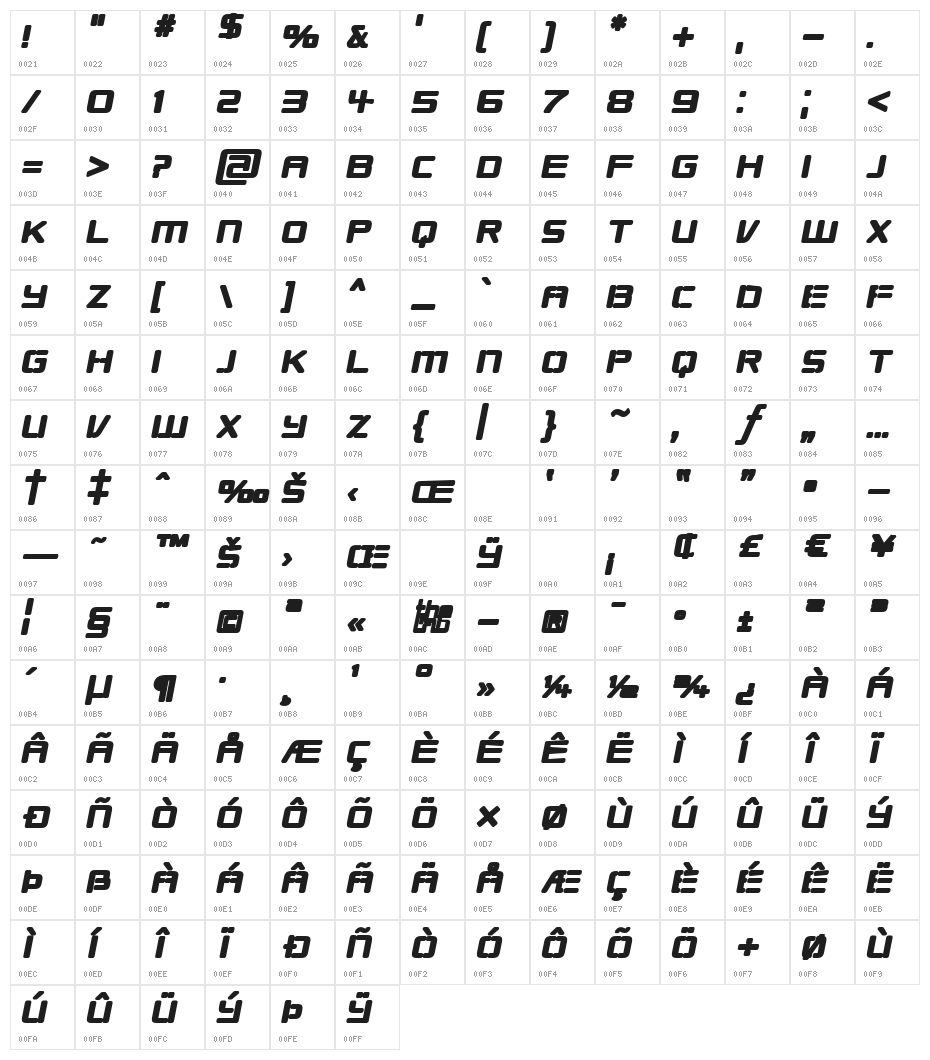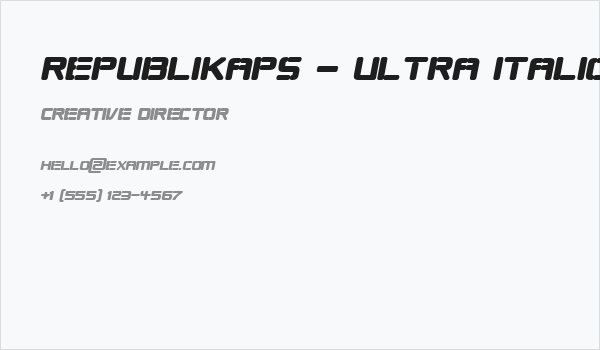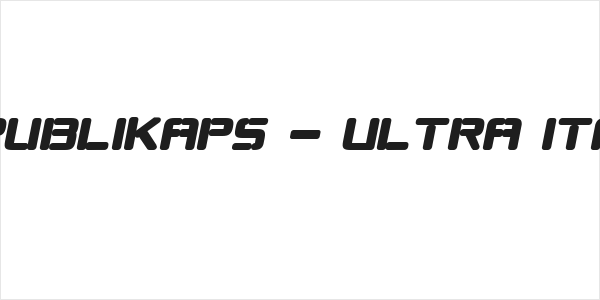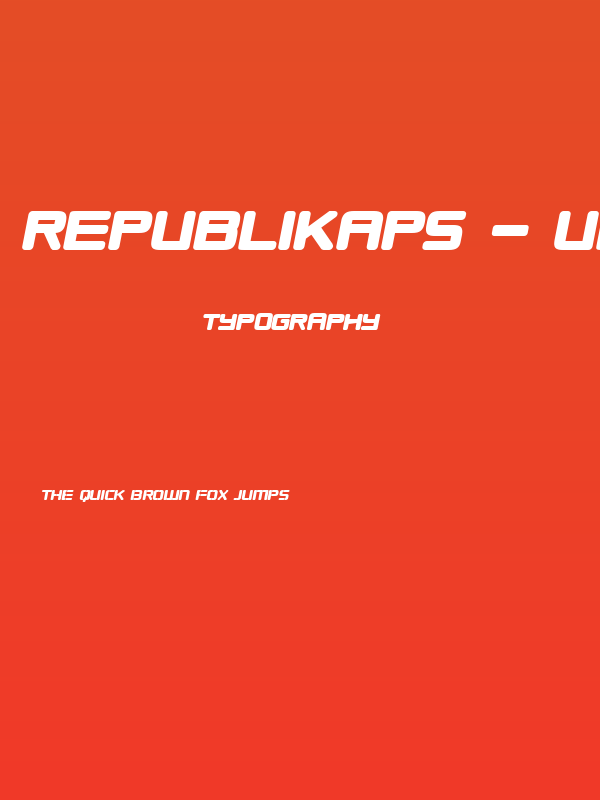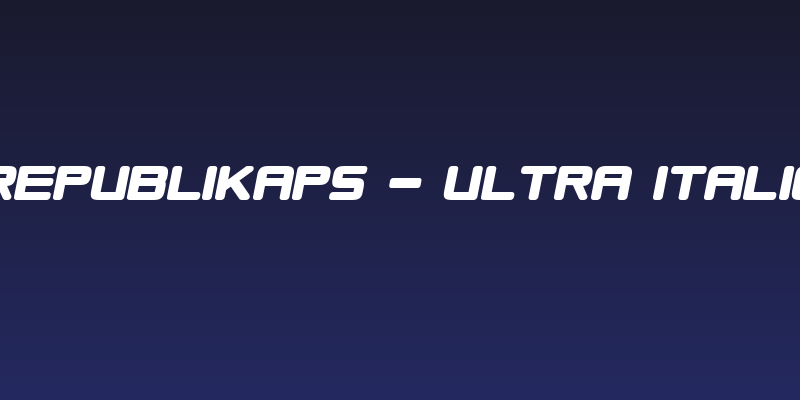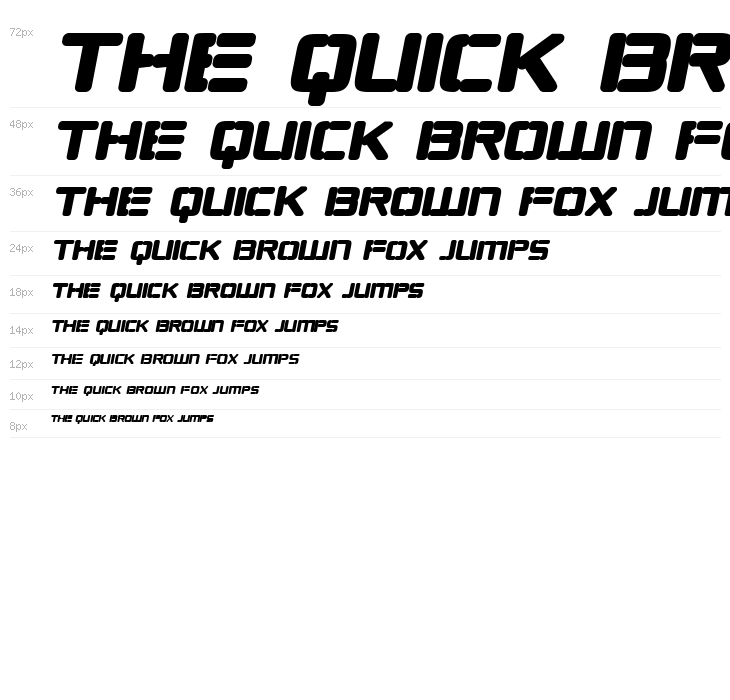
Republikaps - Ultra Italic Font
Republikaps - Ultra Italic Description
This font presents a bold and dynamic appearance with a strong italic slant, giving it a sense of motion and energy. The characters are wide and have a uniform thickness, contributing to a modern and futuristic style. The rounded edges soften the overall look, making it approachable while maintaining a robust presence. The uppercase and lowercase letters are consistent in style, with a slight variation in size and shape that adds to the font's versatility. The numbers and special characters follow the same design principles, ensuring a cohesive look across all elements. This font is ideal for projects that require a bold statement and a contemporary feel.
| Use Case | Logos, Headlines, Branding |
| Proposed Projects | Ideal for branding, sports team logos, tech-related designs, and dynamic advertising materials. |